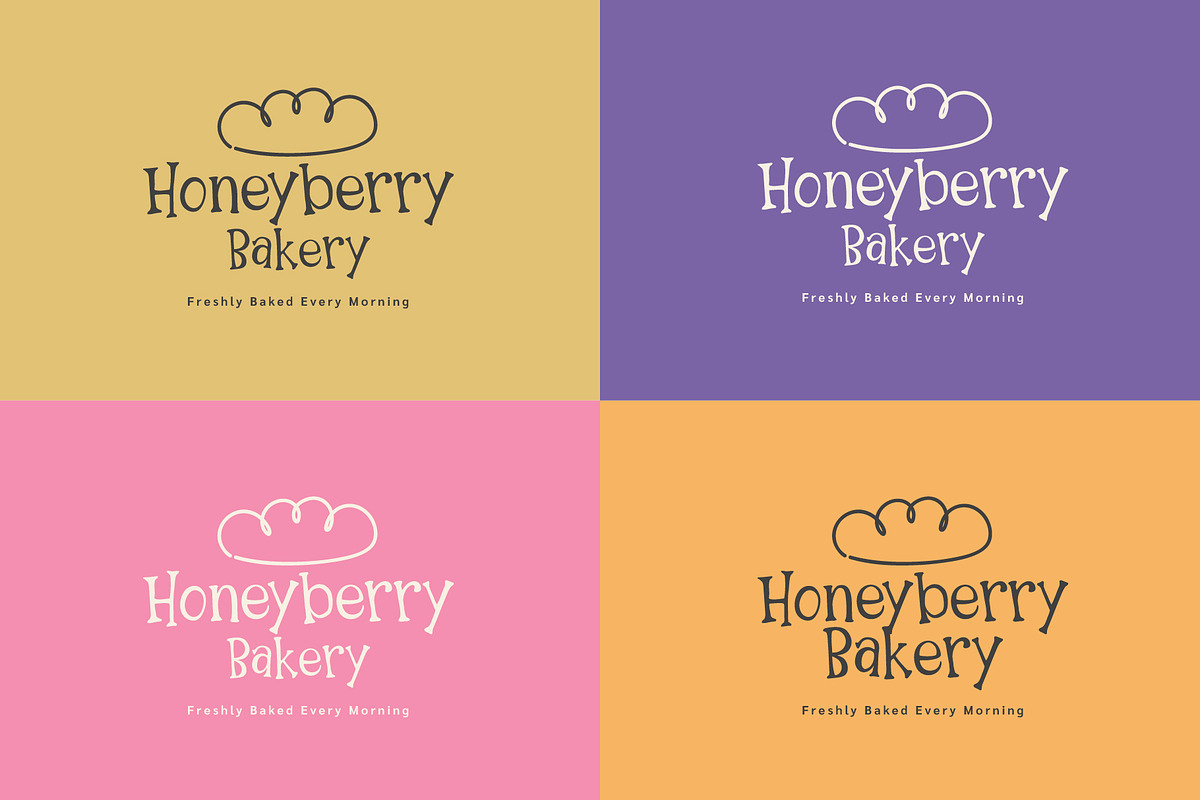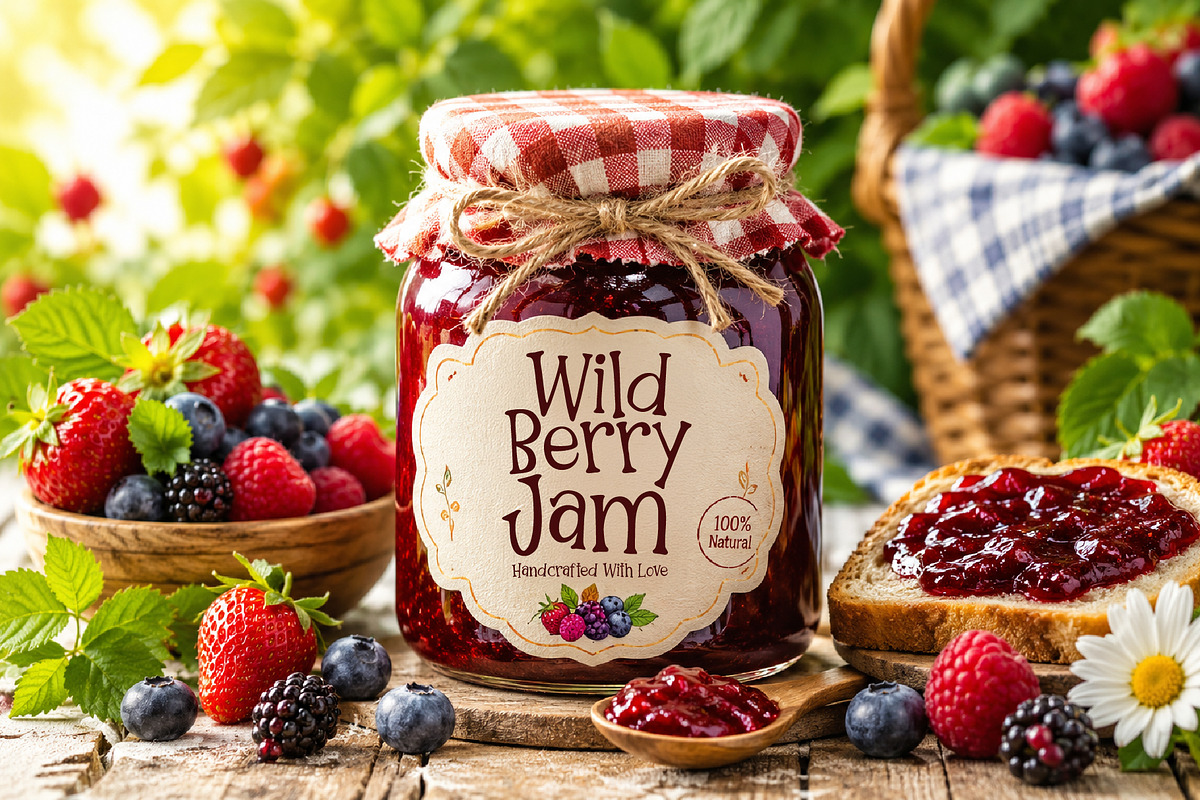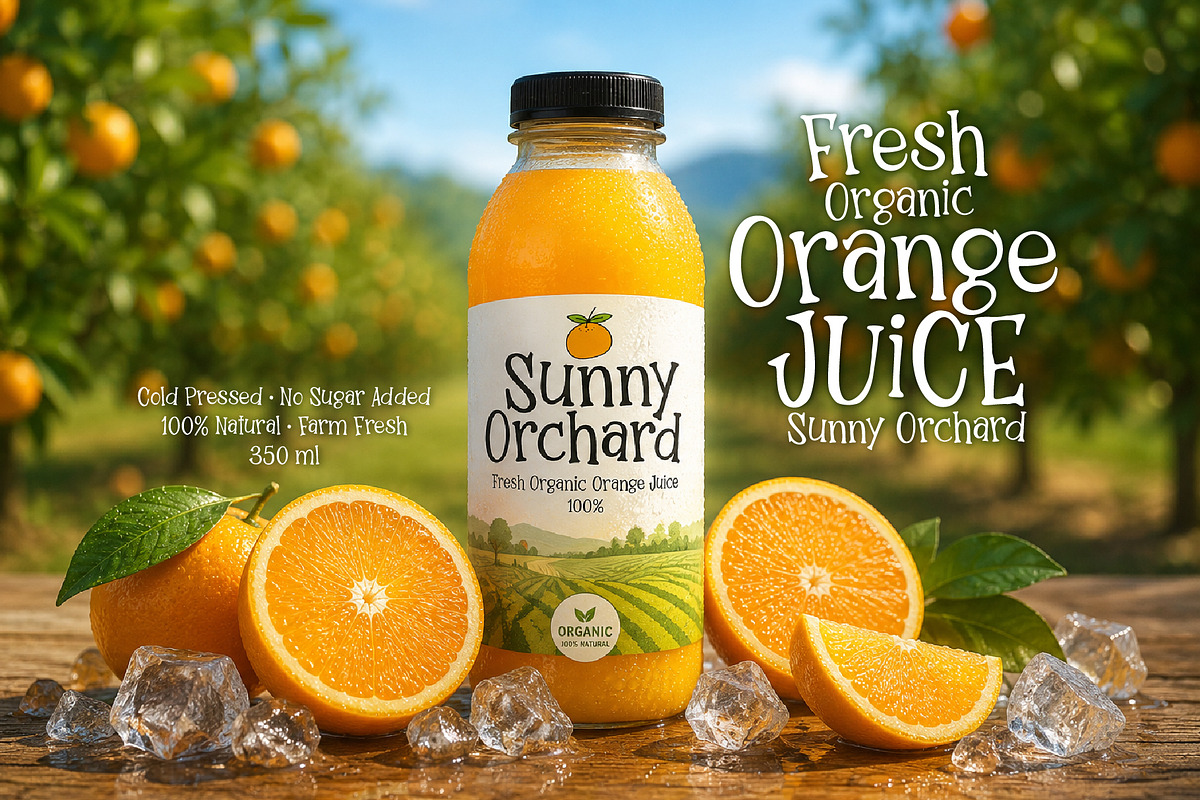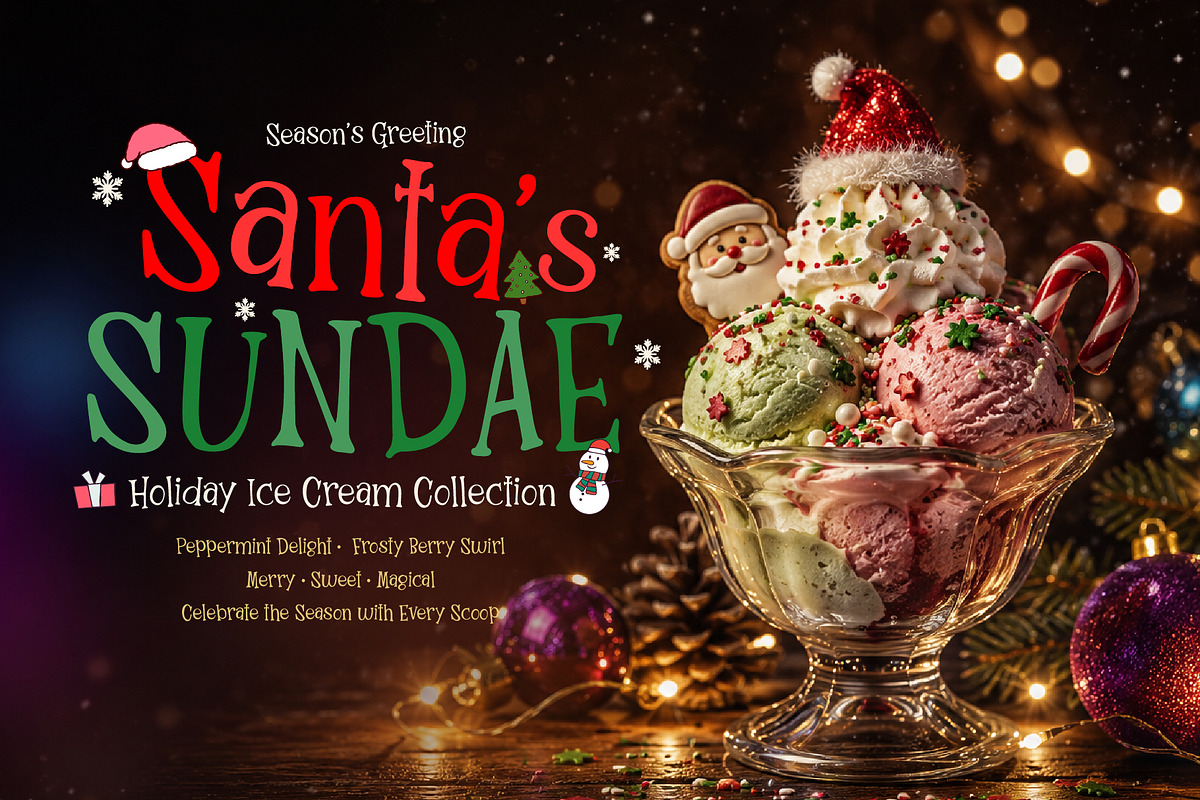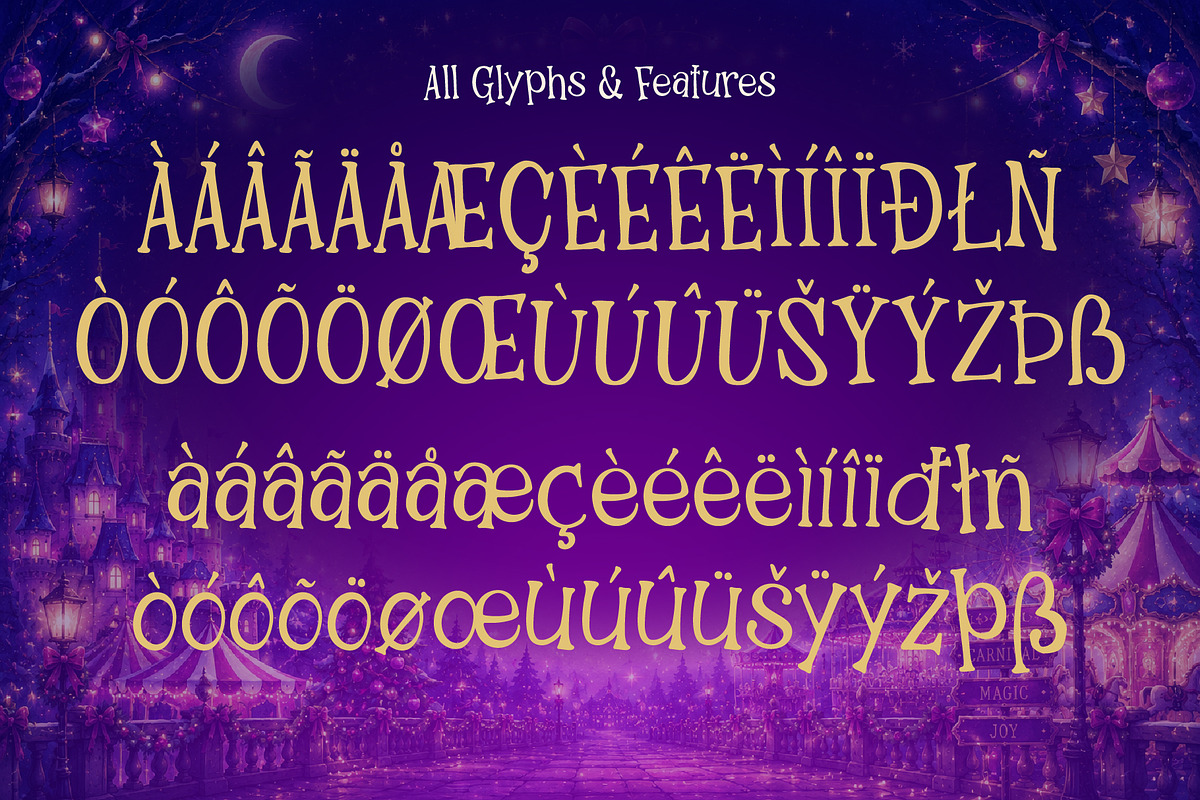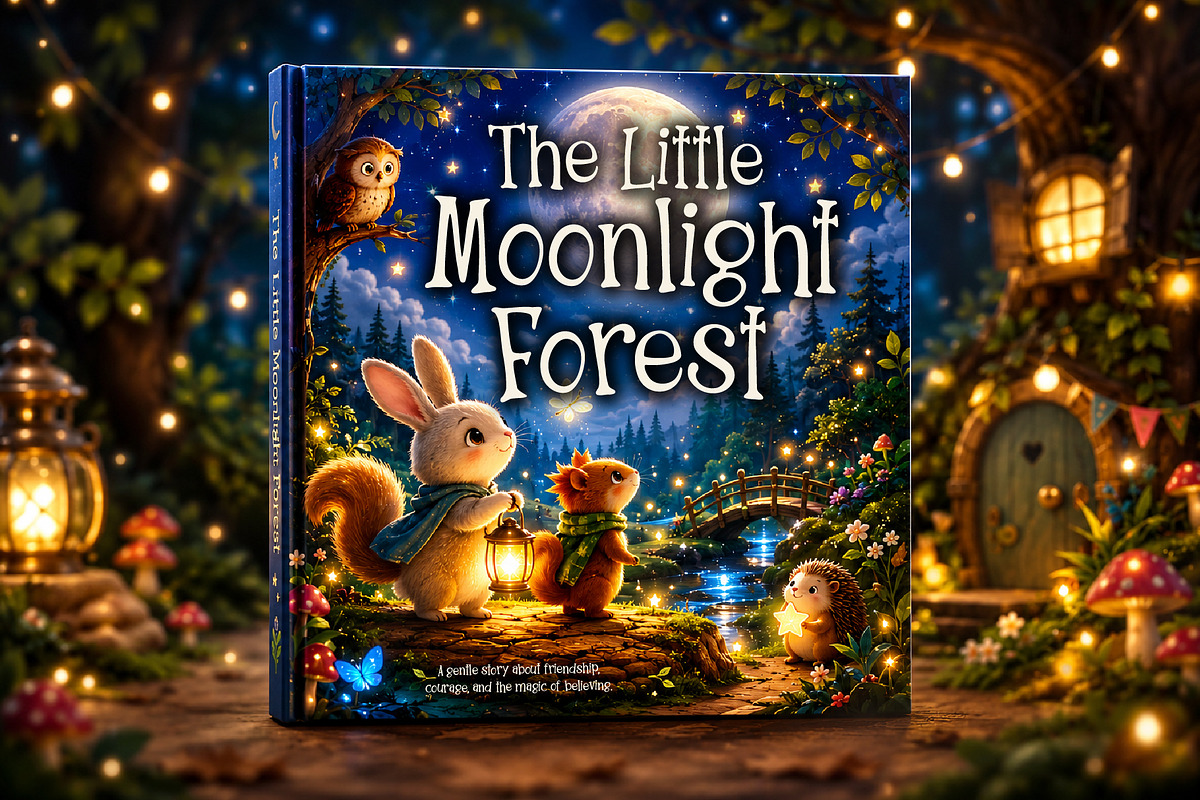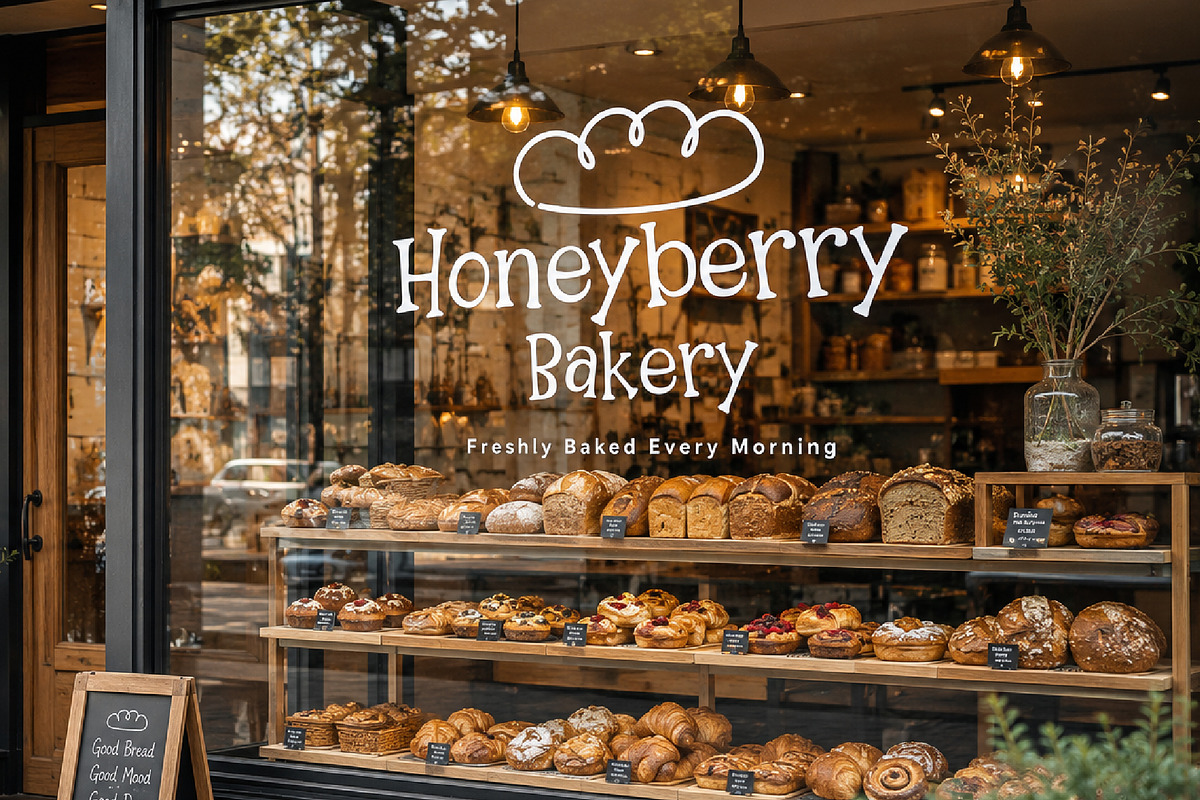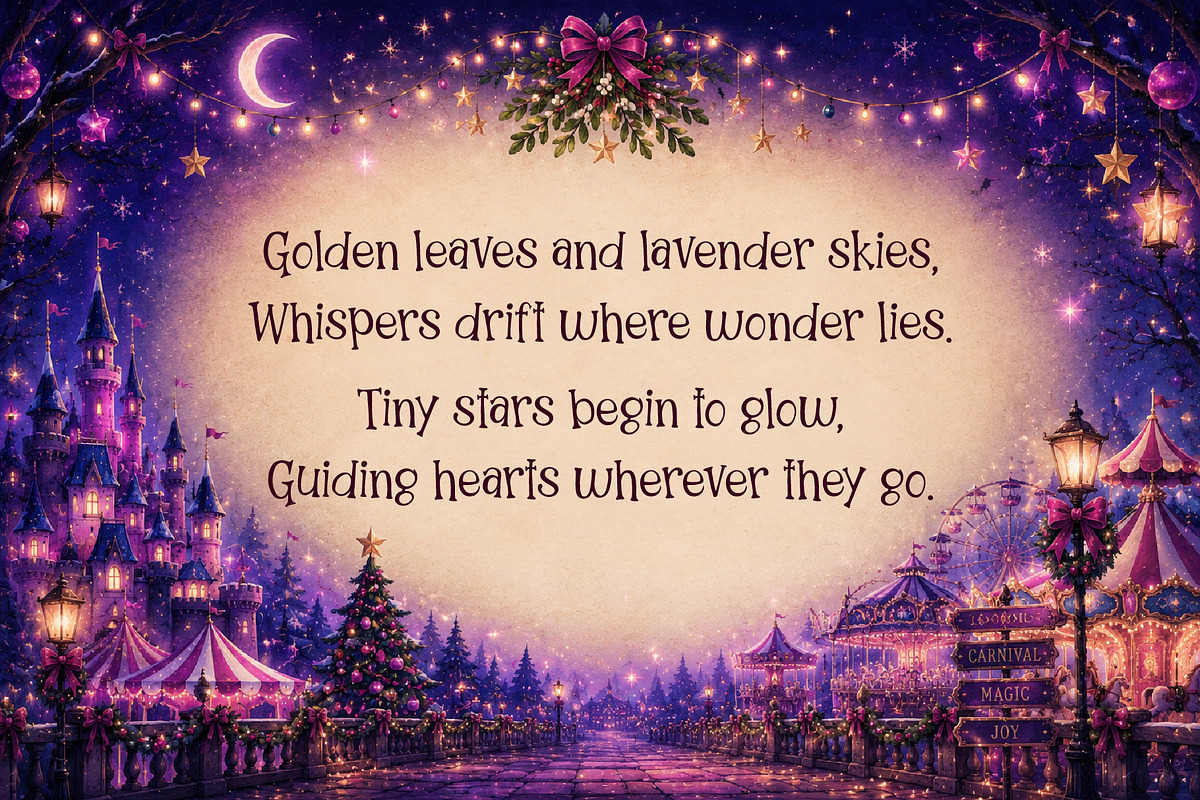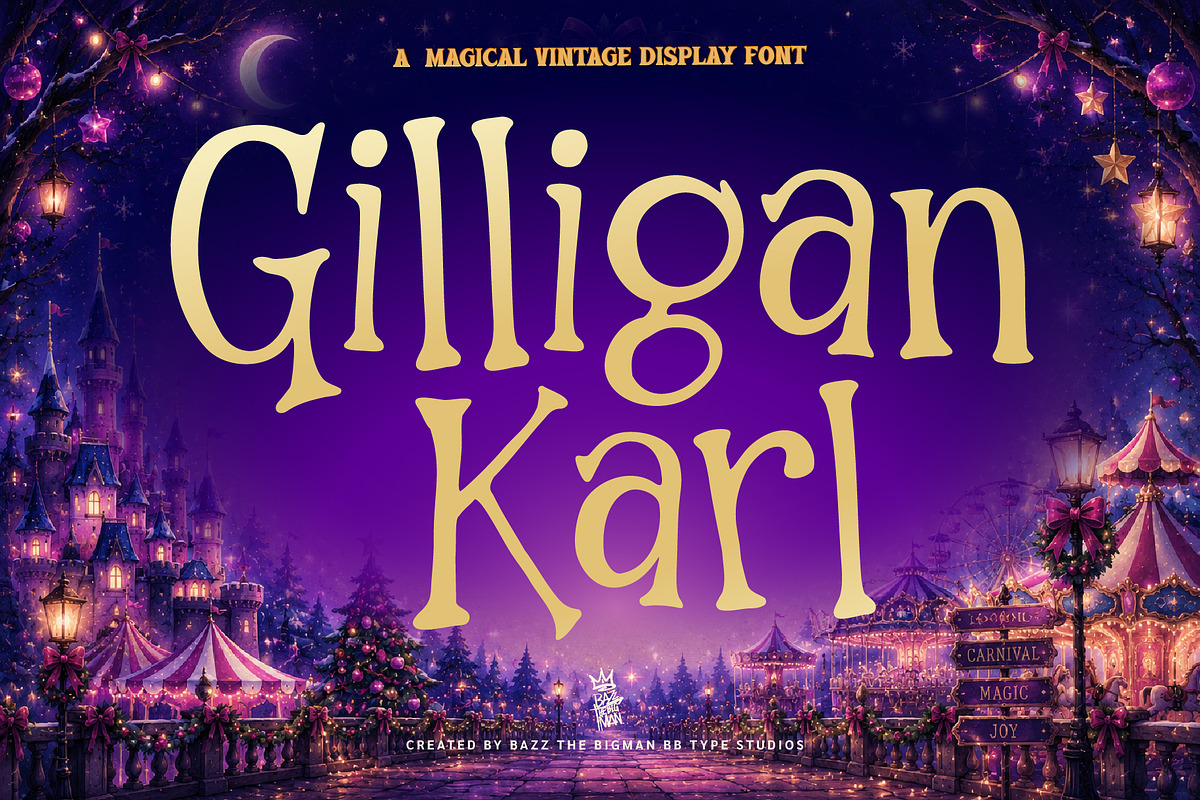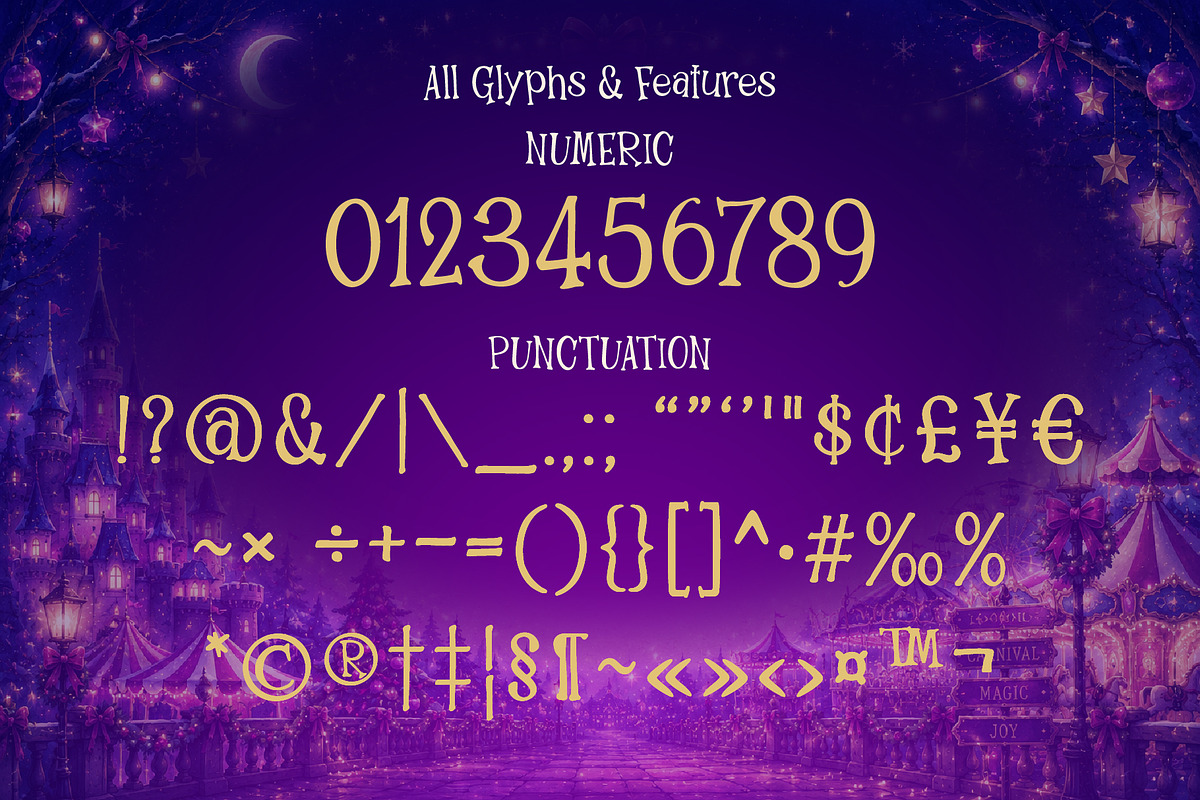
Gilligan Karl
A Magical Vintage Display Font
Gilligan Karl is a whimsical vintage display font inspired by storybooks, moonlit carnivals, Christmas magic, and cozy nostalgic memories. With its playful curves and handcrafted character, this font brings warmth, wonder, and personality to every design.
Perfect for creating eye-catching titles and charming branding projects. Whether you're designing seasonal products, packaging, posters, or children's books, Gilligan Karl adds a magical touch with a timeless vintage feel.
• Christmas Designs • Halloween Projects • Storybook Covers • Carnival Posters • Children's Books • Bakery Branding • Organic Food Labels • Jam & Honey Labels • Greeting Cards • Album Covers • Stickers & Craft Projects • Social Media Graphics • Quotes and Headlines
• Uppercase & Lowercase • Numbers & Punctuation • Multilingual Support
Bring a little magic and vintage charm into your creations with Gilligan Karl.